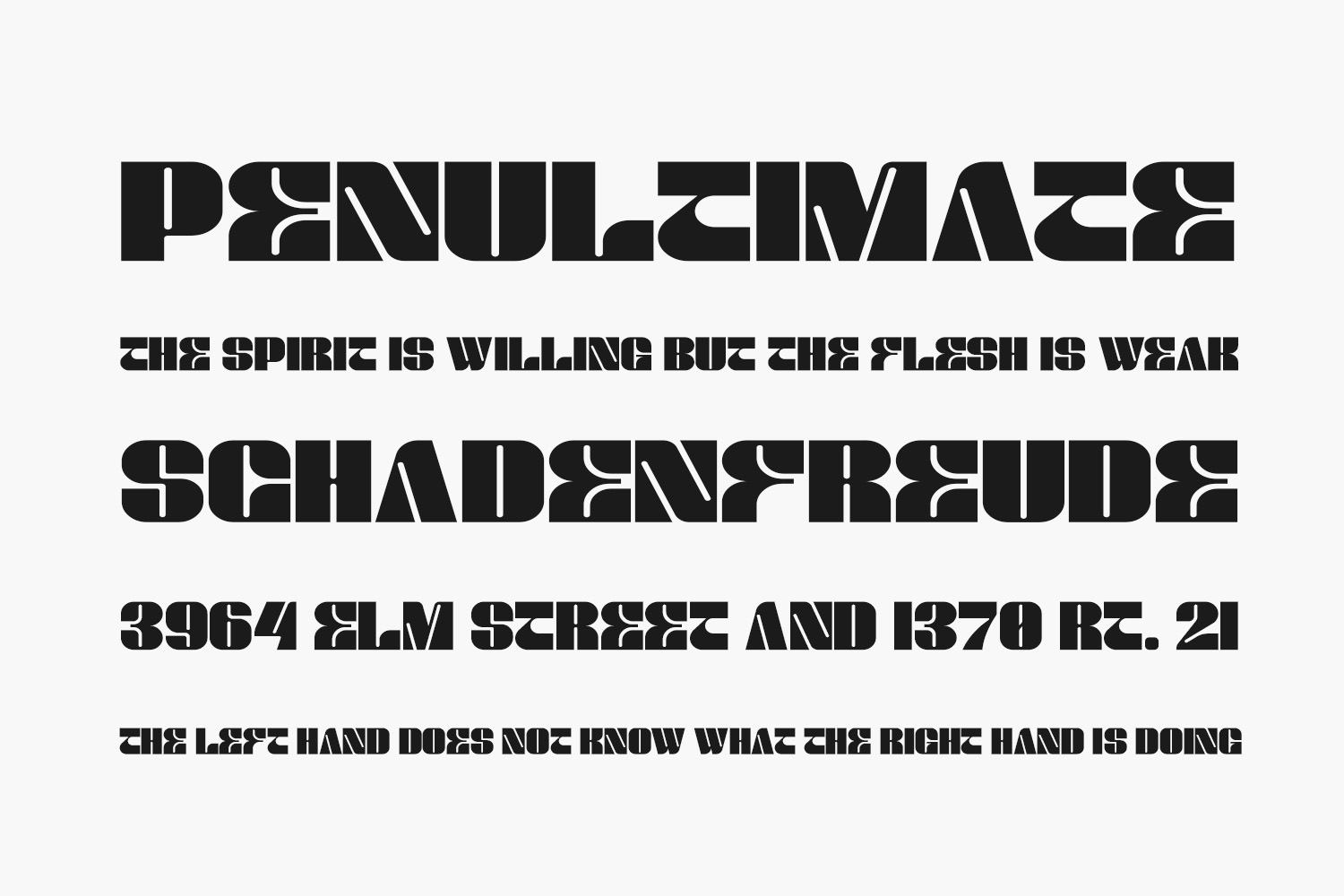
Mentra Free Font is a stylish outlined display font that brings a cool and refreshing touch to your designs. This meticulously crafted font is perfect for anyone seeking a beautiful and eye-catching aesthetic. Mentra Free Font is free for personal use only. Please purchase the full version for commercial use.